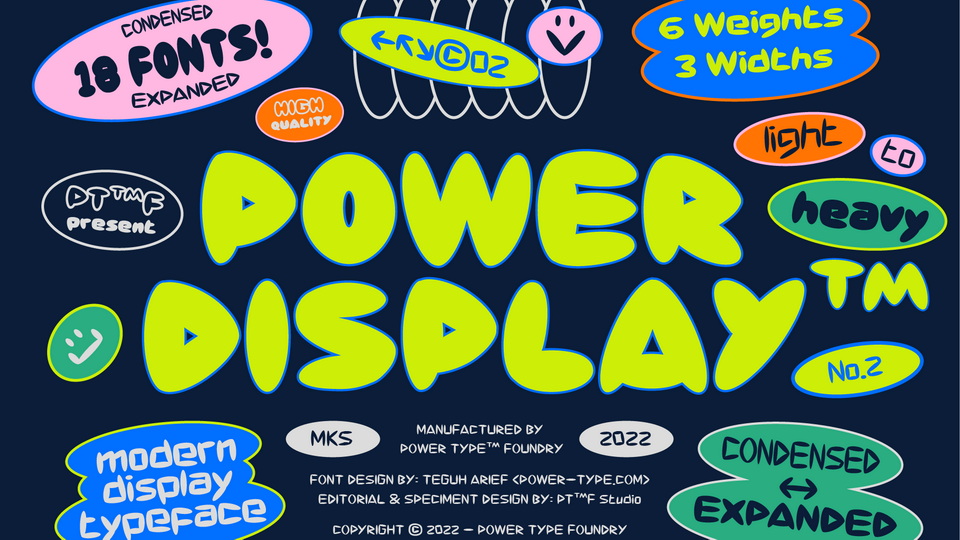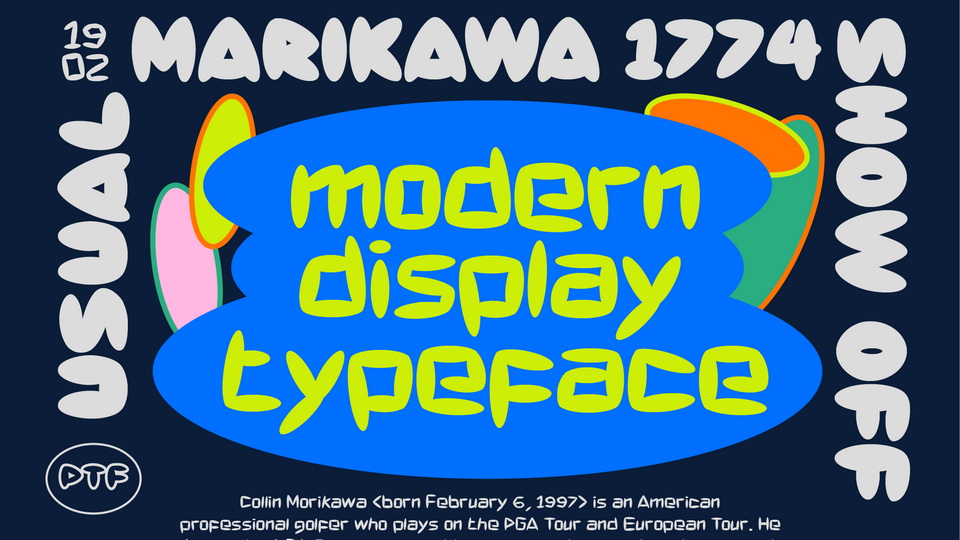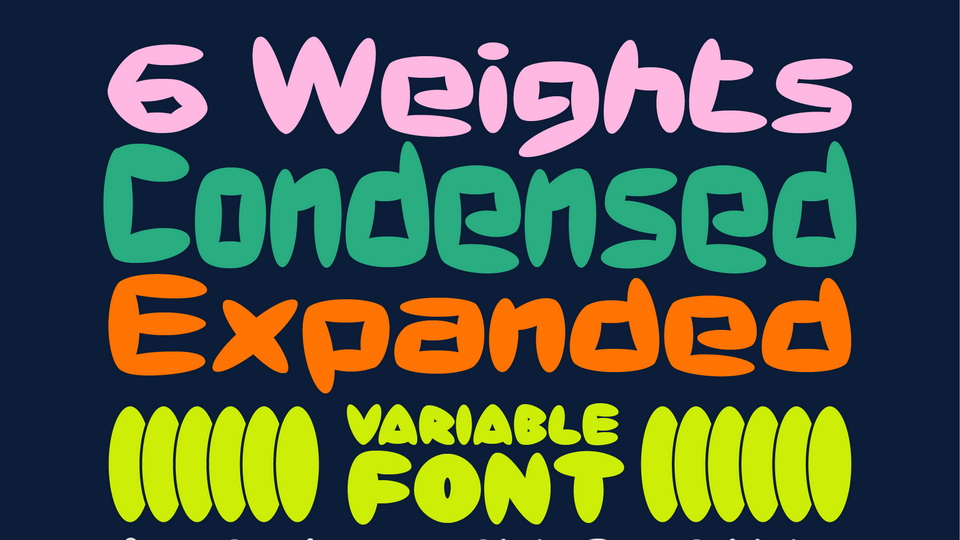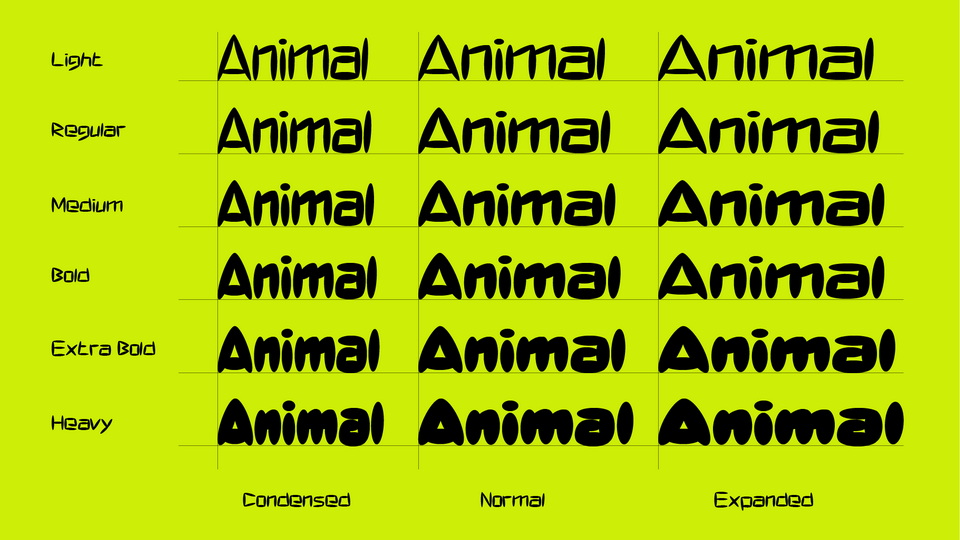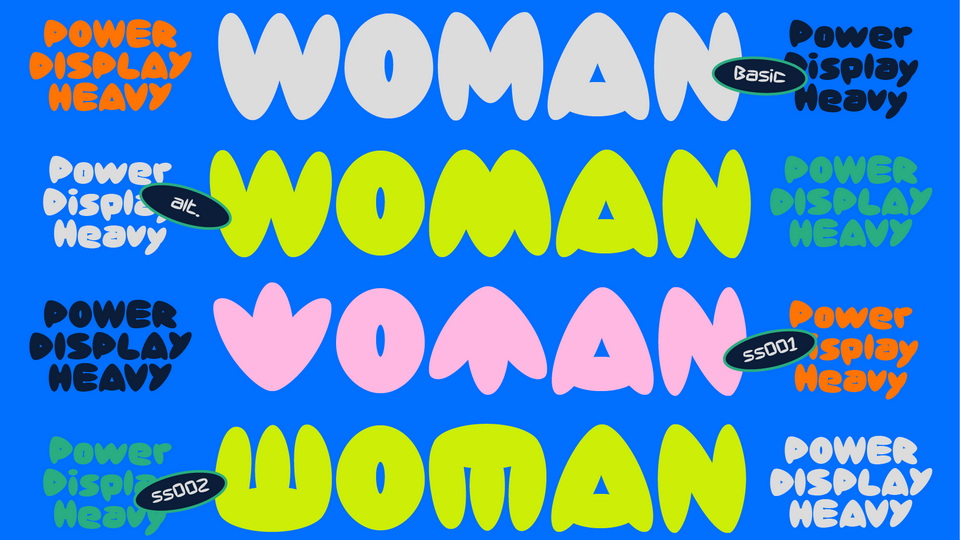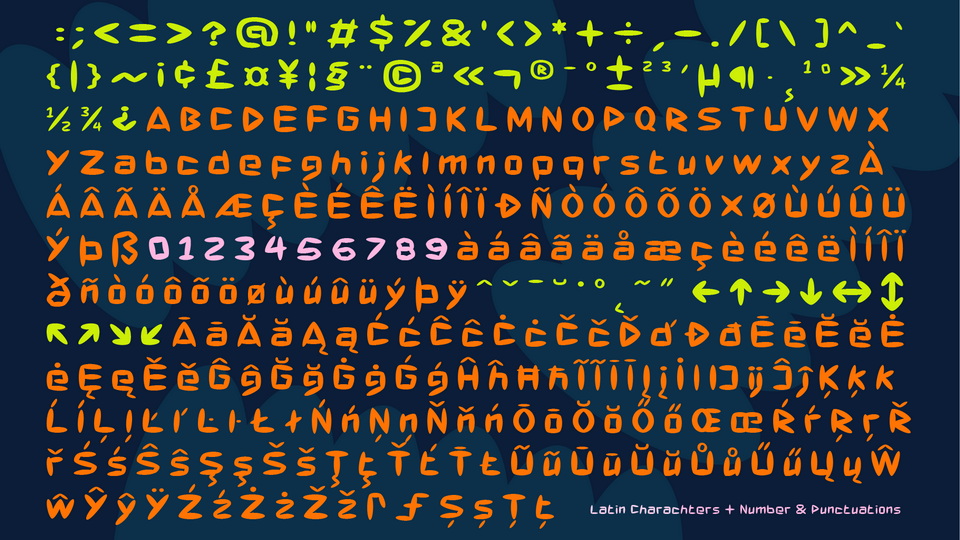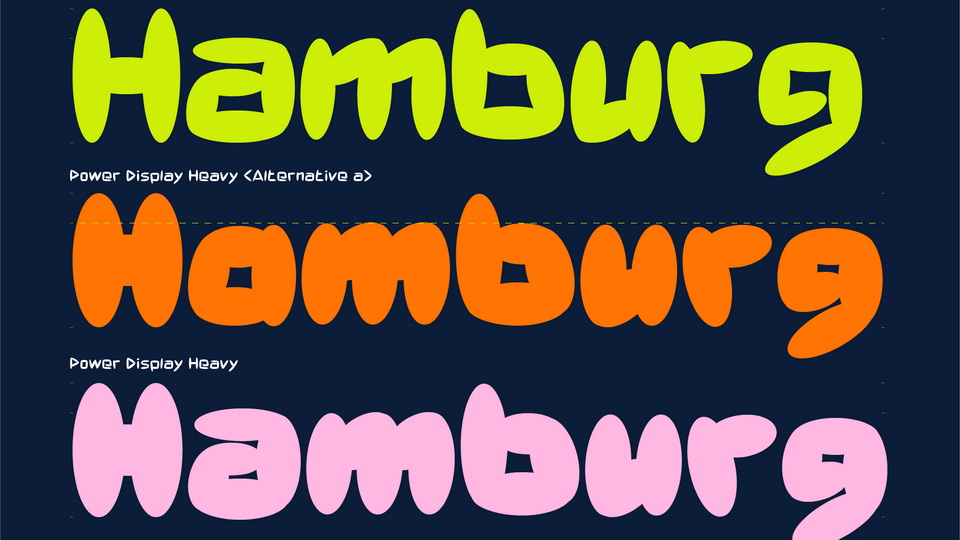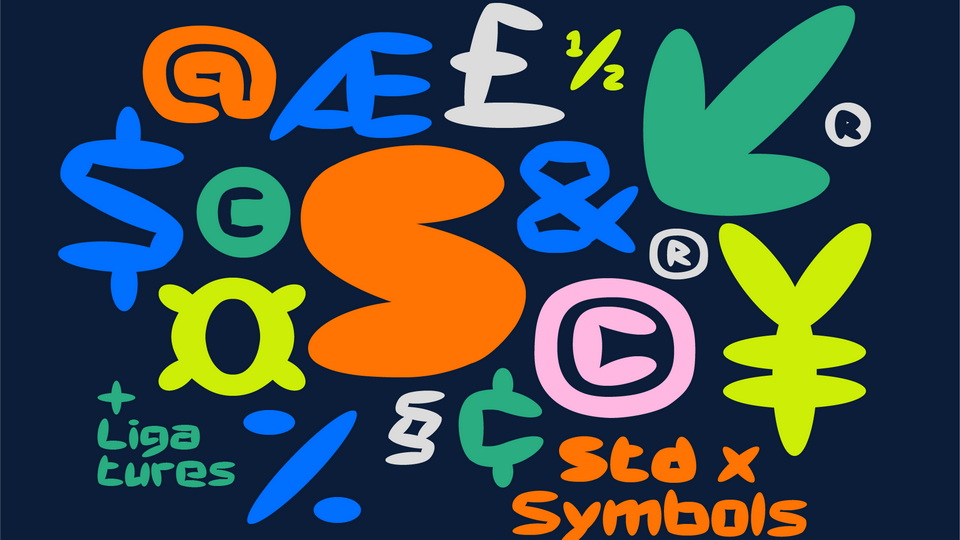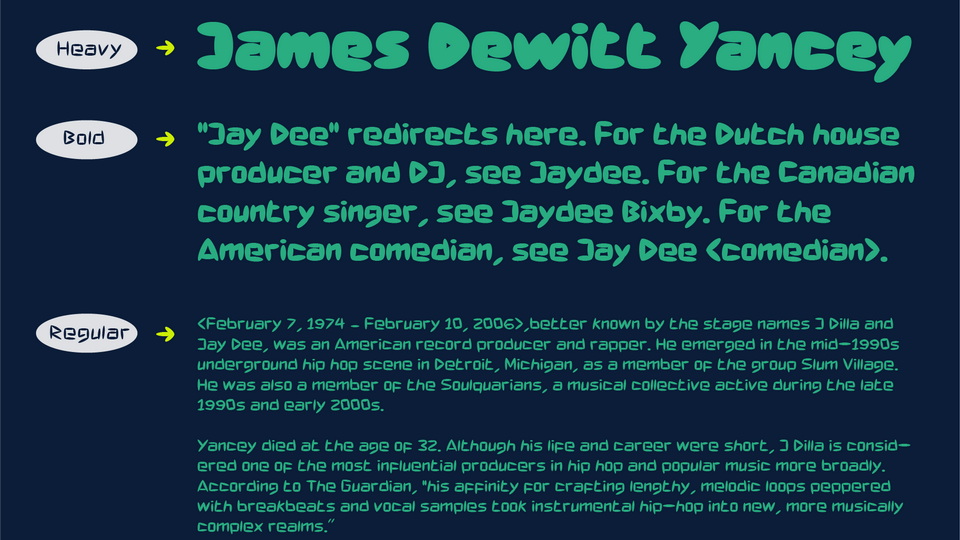
Power Display is a typeface inspired by a fun cartoon character combined with a modern style. This playful typeface comes in three widths: Condensed, Normal, Expanded.
Power Display font can be used for modern and vintage designs, also can be easily paired with some graphic elements (illustration, photography). This font is perfect for, logotype, branding, title and packaging.